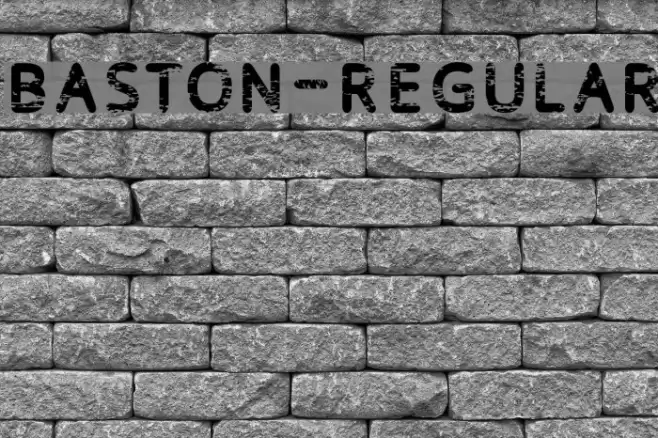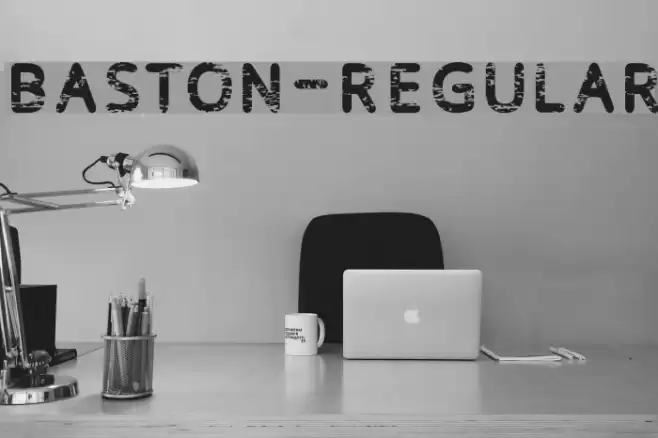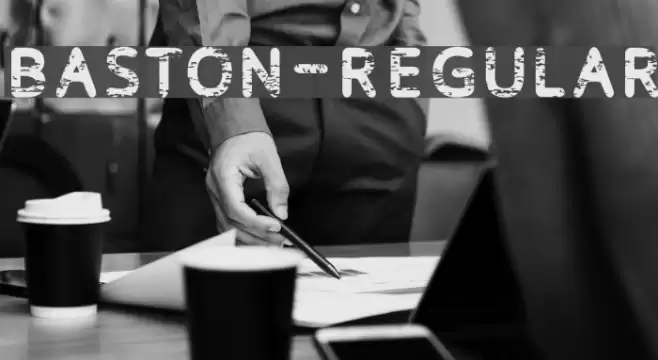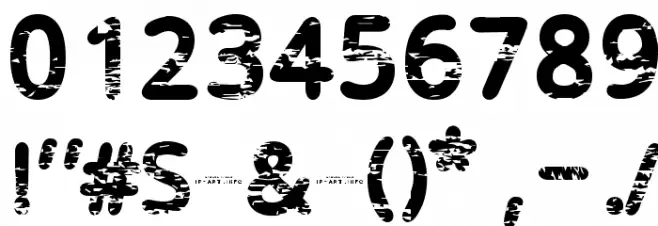
Baston-Regular Font
This font features a distressed, grunge style with a bold and impactful appearance. The characters are designed with a rough texture, giving them a worn and weathered look. This adds a unique, edgy feel to the text, making it stand out in any design. The uppercase and lowercase letters maintain a consistent style, with rounded edges and a uniform thickness, while the numbers and special characters follow the same aesthetic. The font's distressed texture is consistent across all characters, providing a cohesive look that is perfect for projects requiring a rugged or vintage vibe.
A bold, distressed font with a grunge texture for an edgy, vintage look from Distorted Eroded fonts.
- Proposed Projects: Ideal for poster designs, album covers, branding for edgy or alternative products, and any project needing a vintage or rugged aesthetic.
- Overall Style: Vintage